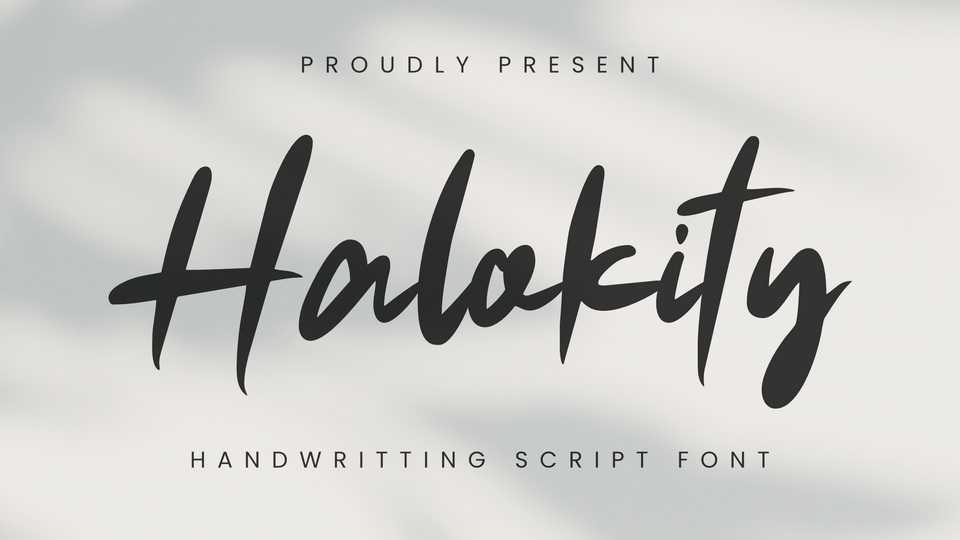
Download Halokity font, a stunningly fluid script typeface. With each curve and line crafted through authentic hand strokes, Halokity evokes a sense of natural handwriting.